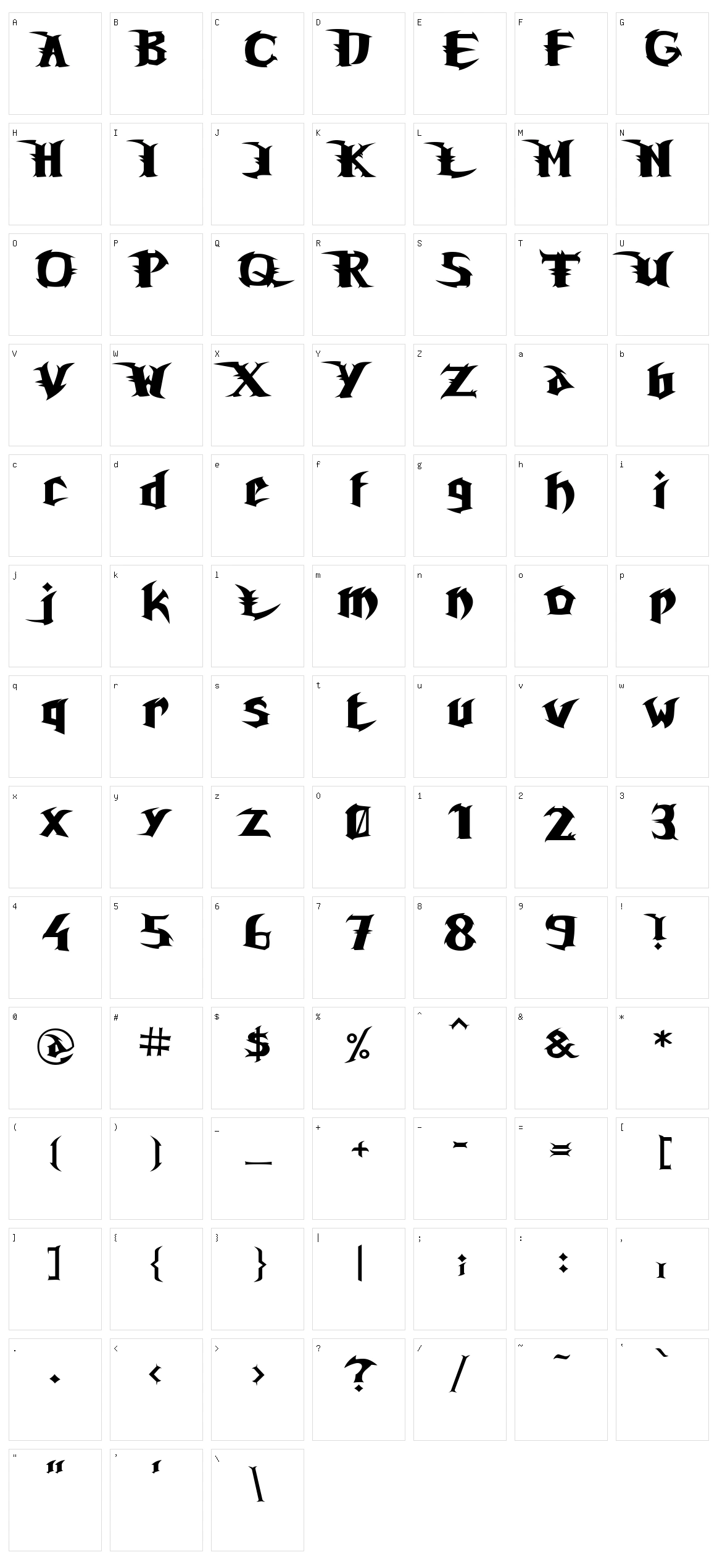
Unreal Tournament
Designed by: Rah'Dick
Description: The free font Unreal Tournament is carefully designed by Rah'Dick, showcasing a thoughtful balance of creativity and usability and belongs to the Gothic font family. When you download the ZIP file, it contains only 40.82 KB of font files, making it lightweight and quick to download. Please review the license details below to understand permitted usage and distribution rights. If license information is not available, we recommend using this font for personal projects only or contacting the author directly for commercial usage permissions.
Unreal Tournament Font Version 1.0
Jawoll, ich habe eine komplette TTF-Schriftart gemacht, die im Stil der Buchstaben des UT-Titelbildschirms gehalten sind.
Im Moment gibt es noch Probleme, was Nicht-Deutsche Betriebssysteme betrifft (z.B. Ungarisches Windows), aber das lässt sich auch noch beheben... In einer zukünftigen Version.
Yes, I made a complete TTF-Font in the style of the characters on the UT title screen.
At the moment, there are still some problems with operating systems with a different language than German (e.g. Hungarian Windows), but they will be compensated in later versions, I guess.